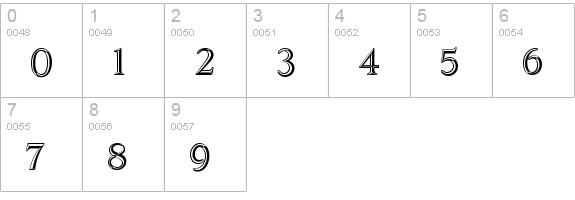
ArtWorld MN Font Details
ArtWorld MN is a beautifully crafted font that captures the essence of artistic expression. With its elegant curves and unique design, this font is perfect for adding a touch of sophistication to any project. Whether you're creating a logo, poster, or website, ArtWorld MN will elevate your work to the next level. The best part? ArtWorld MN is completely free to download at FontsMarket.com. So you can unleash your creativity without breaking the bank. Don't miss out on this stunning font that will make your designs stand out from the crowd. Download ArtWorld MN today and transform your projects into works of art.